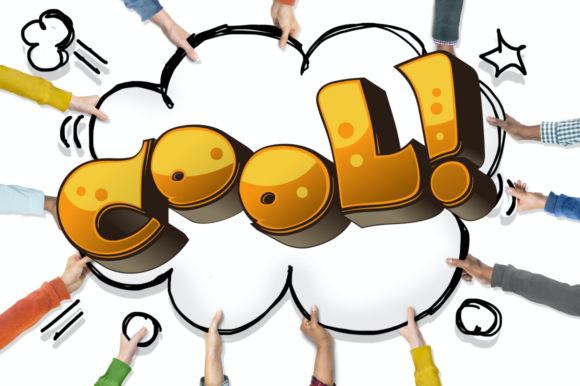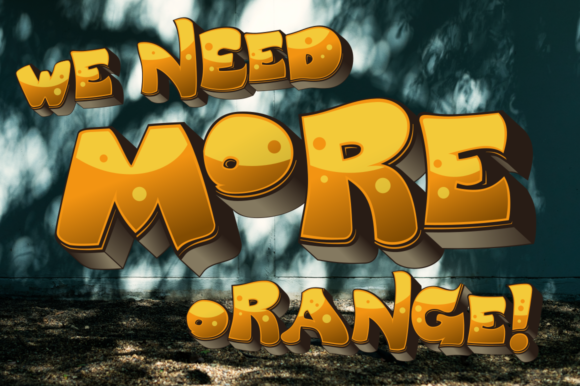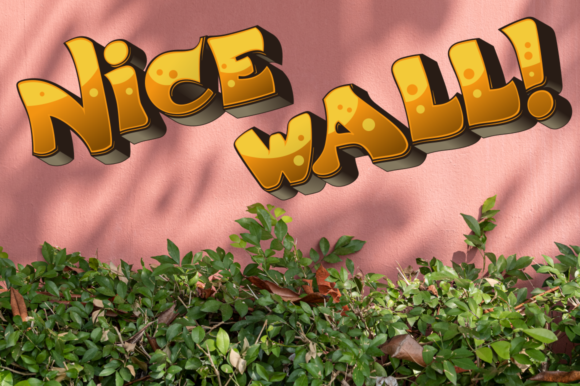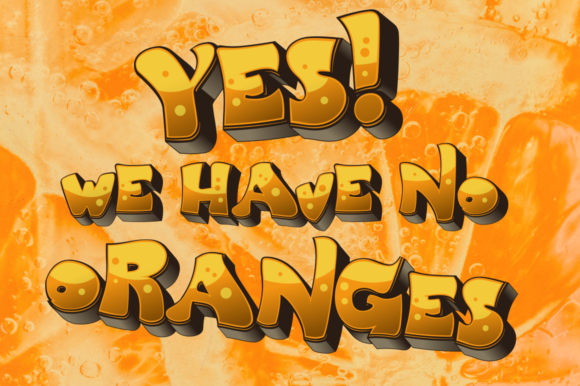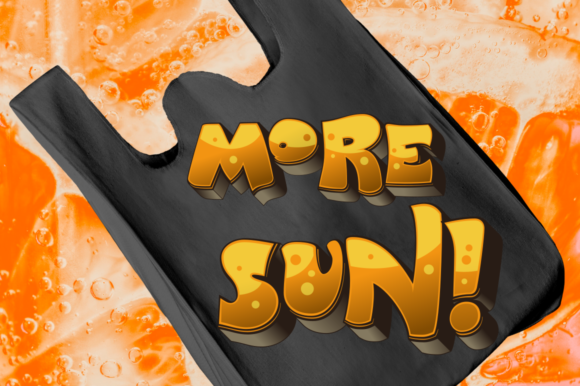
BigPartyO2 Orange Font
Introducing “BigPartyO2 Orange,” an incredible 3D color font that will take your designs to the next level. This font is designed to make a bold statement and add a vibrant touch to any project you’re working on.
With its striking 3D effect and eye-catching orange color, “BigPartyO2 Orange” brings a sense of excitement and energy to your designs. Whether you’re creating posters, logos, party invitations, or any other design that calls for a fun and dynamic look, this font will definitely make an impact.
The beauty of “BigPartyO2 Orange” lies in its versatility and endless variations. The font allows you to play around with different styles, sizes, and effects to create unique and customized designs. Let your imagination run wild and experiment with the different options this font offers to achieve the perfect look for your project.
So, get ready to have fun with “BigPartyO2 Orange” and let your creativity shine. Whether you’re designing for parties, events, branding, or any other project that needs a vibrant and energetic touch, this font will make a statement and leave a lasting impression.
Embrace the awesomeness of “BigPartyO2 Orange” and watch your designs come to life with its stunning 3D effects and vibrant color. It’s time to turn up the excitement and make your creations stand out from the crowd. Enjoy the journey of exploring this beautiful font and let it inspire your creative endeavors!